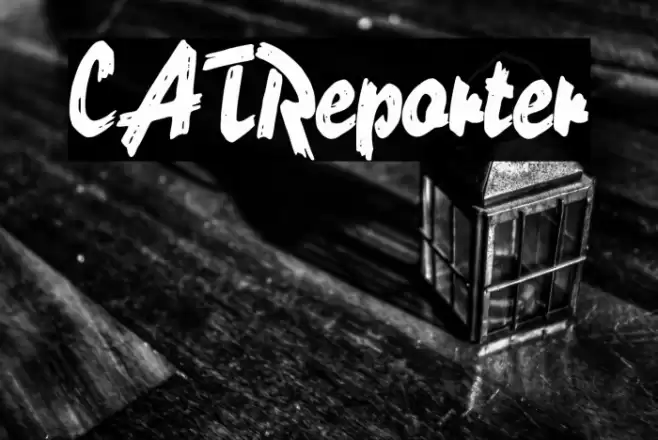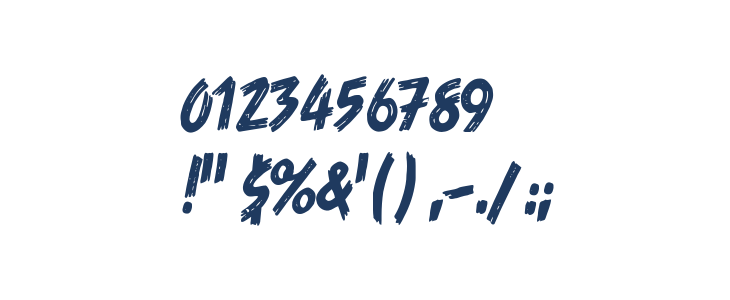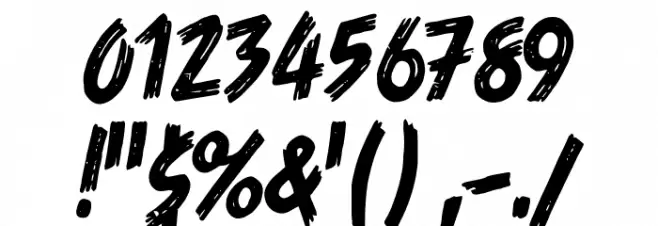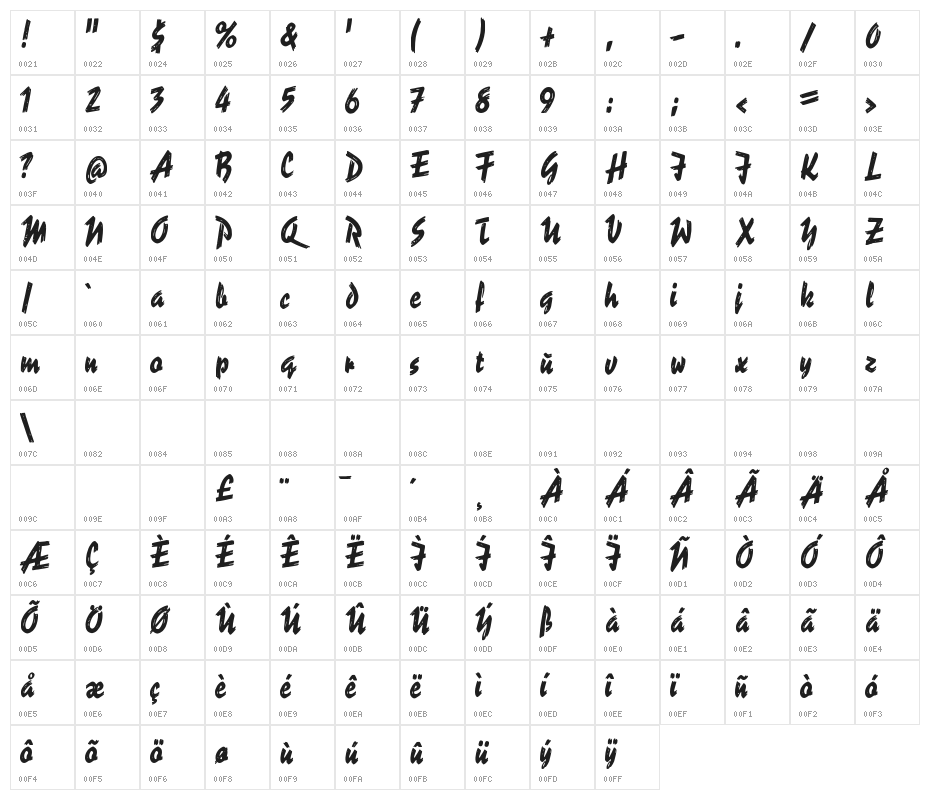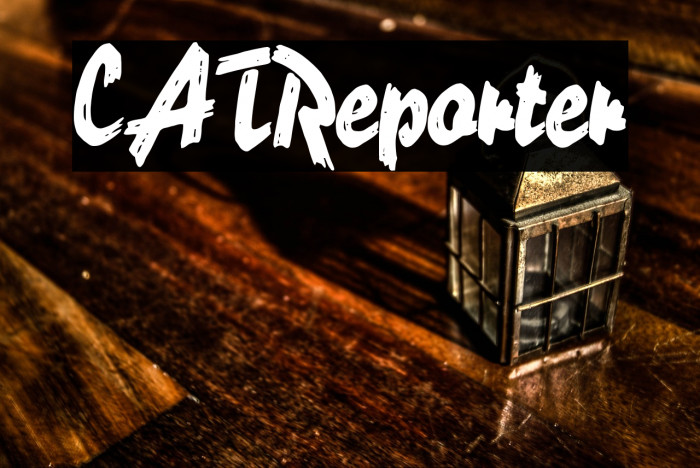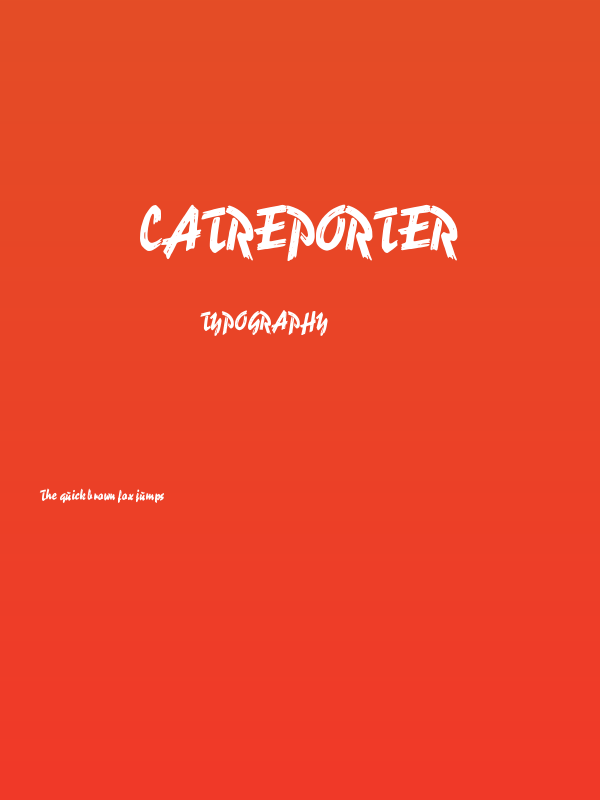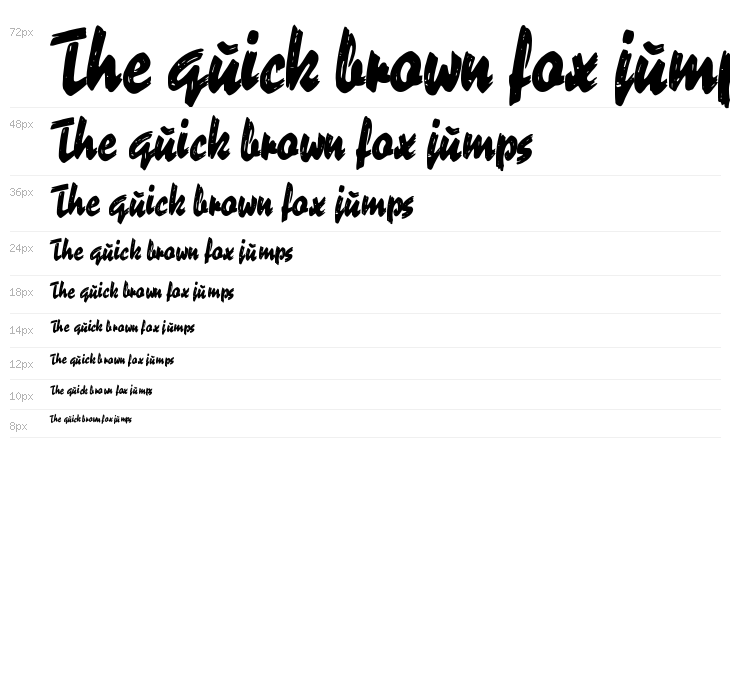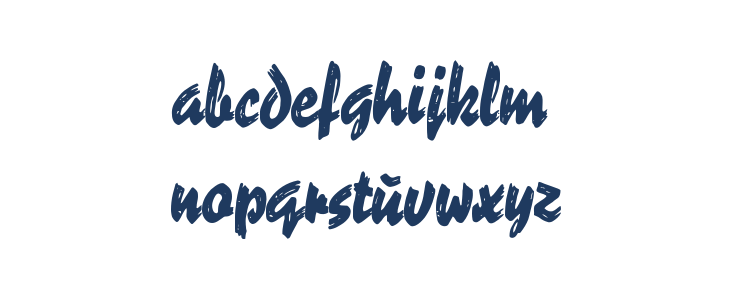
CATReporter Font
CATReporter Description
This font features a bold and dynamic brush style, characterized by its energetic strokes and rough edges. The letters exhibit a sense of movement and spontaneity, with varying stroke thickness that adds a lively texture. The uppercase and lowercase letters maintain a consistent style, while the numerals and special characters integrate seamlessly with the overall design. The font's rugged appearance gives it a handcrafted feel, making it suitable for projects that require a bold and artistic touch.
A bold, brush-style font with dynamic and rough strokes from Uncategorized fonts.
- Proposed Projects: Ideal for posters, album covers, branding, and any design requiring a bold, artistic flair.
- Overall Style: Modern, Artistic